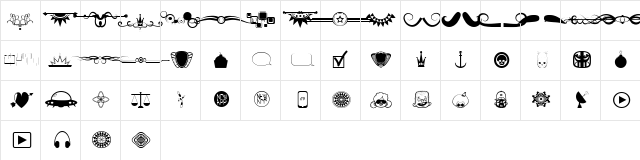
Ornament mix Regular
Foundry: dcoxy Medina Gregory
Designer: dcoxy Medina Gregory
Design Context for Ornament mix
Ornament mix is built around its visual character rather than neutral utility - its distinctive forms are designed to make an impression at display sizes.
Font Pairing: Pair with a clean neutral sans-serif for body copy to let Ornament mix's character lead without overwhelming the composition.
Pro Tip: Use Ornament mix exclusively at display sizes - it was designed to be seen, not read at length. Let a neutral companion handle body copy.